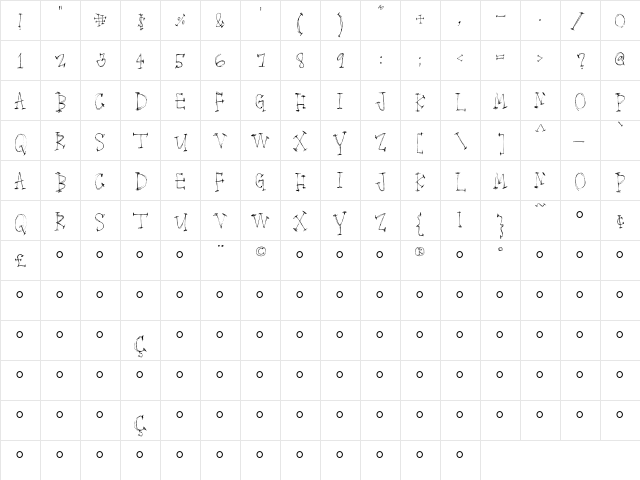
Itchyhouse Regular
Design Context for Itchyhouse Typeface
Itchyhouse is a composed and adaptable typeface that performs quietly and consistently across a wide range of design contexts.